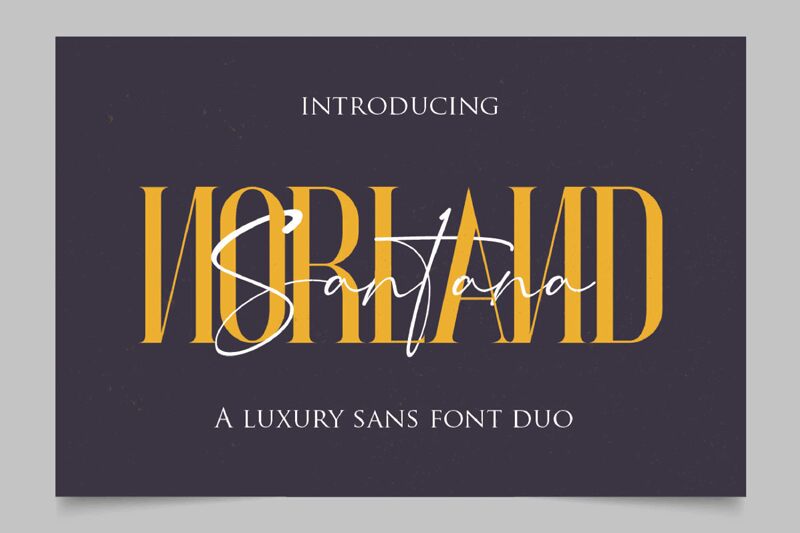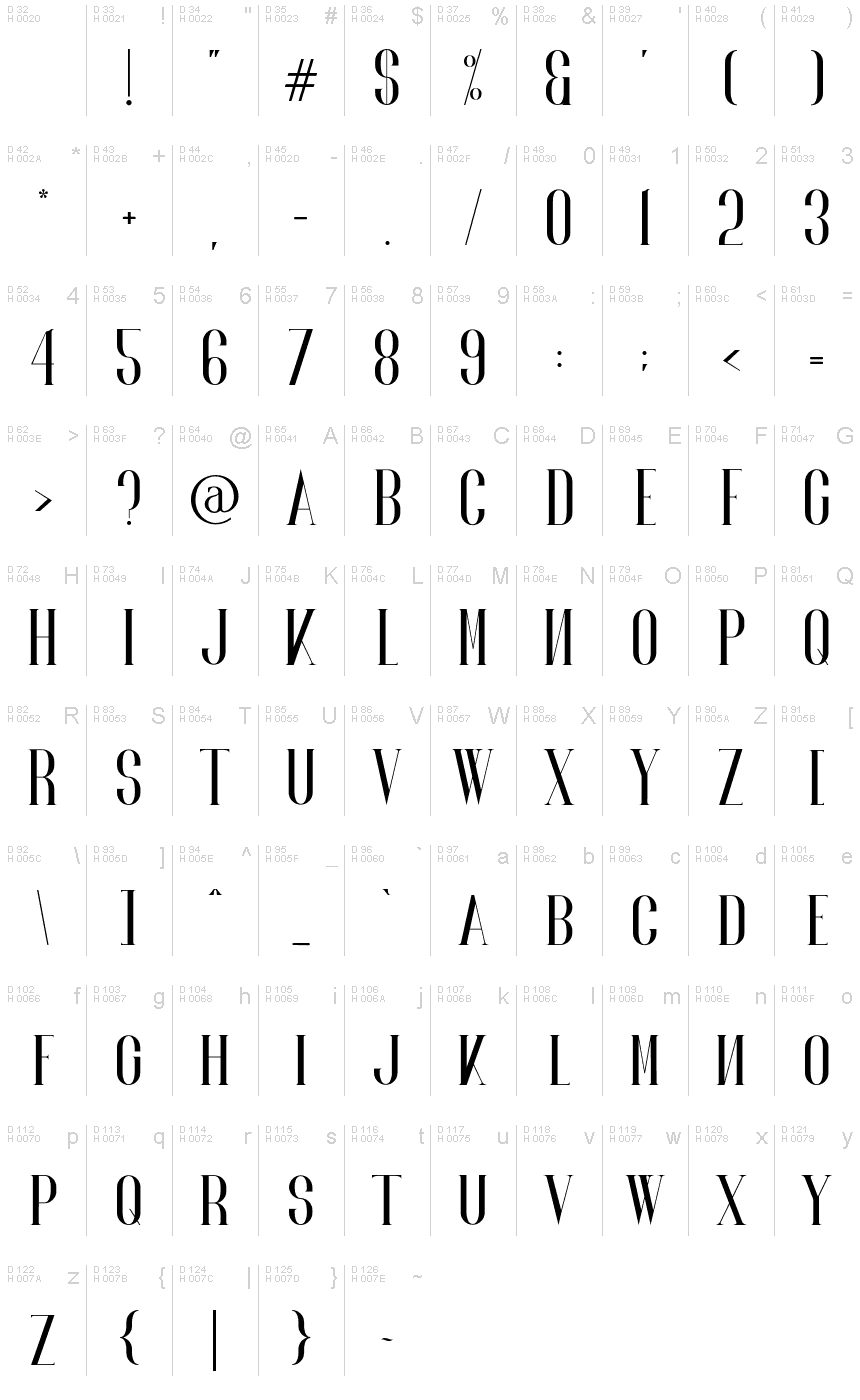
NORLAND
say hello to Norland Santana !
The Norland Santana - A Luxury Font Duo is a combination of an elegant sans serif font & handwritten script font based on the expression of real handwriting.
Norland Santana is a beautiful high fashion font duo that makes for perfect to use for invitation, stationery, wedding designs, social media posts, advertisements, product packaging, product designs, label, photography, watermark, special events,logos, signatures, quotes, badges, labels, packaging design, blog headlines or simply use it in your next design project.
Norland Santana - A Luxury Duo also Suitable for Logo, greeting cards, quotes, posters, branding, name card, stationary, design title, blog header, art quote,typography, art, modern envelope lettering or book design, happening style like handdrawn design or watercolor design theme, craft design, any DIY project, book title,
or any purpose to make your art/design project look pretty and trendy.
Using Norland Santana definitely make your text stand out.The alternative Norland Santana comes includes full set of gorgeous uppercase and lowercase letters, multilingual support, punctuation, and stylistic set gorgeous extras from a to z and beginning and ending numerals swashes. everything can be easily accessed using software that supports OpenType. Like Adobe Indesign, Adobe Illustrator CS, Adobe Photoshop CC, and Corel Draw.
You can mix and match with Opentype feature:
-Ekstras 8 ligature
-Alternates
-Stylistic sets from ss01 to ss03
The Norland Santana - A Luxury Font Duo is a combination of an elegant sans serif font & handwritten script font based on the expression of real handwriting.
Norland Santana is a beautiful high fashion font duo that makes for perfect to use for invitation, stationery, wedding designs, social media posts, advertisements, product packaging, product designs, label, photography, watermark, special events,logos, signatures, quotes, badges, labels, packaging design, blog headlines or simply use it in your next design project.
Norland Santana - A Luxury Duo also Suitable for Logo, greeting cards, quotes, posters, branding, name card, stationary, design title, blog header, art quote,typography, art, modern envelope lettering or book design, happening style like handdrawn design or watercolor design theme, craft design, any DIY project, book title,
or any purpose to make your art/design project look pretty and trendy.
Using Norland Santana definitely make your text stand out.The alternative Norland Santana comes includes full set of gorgeous uppercase and lowercase letters, multilingual support, punctuation, and stylistic set gorgeous extras from a to z and beginning and ending numerals swashes. everything can be easily accessed using software that supports OpenType. Like Adobe Indesign, Adobe Illustrator CS, Adobe Photoshop CC, and Corel Draw.
You can mix and match with Opentype feature:
-Ekstras 8 ligature
-Alternates
-Stylistic sets from ss01 to ss03